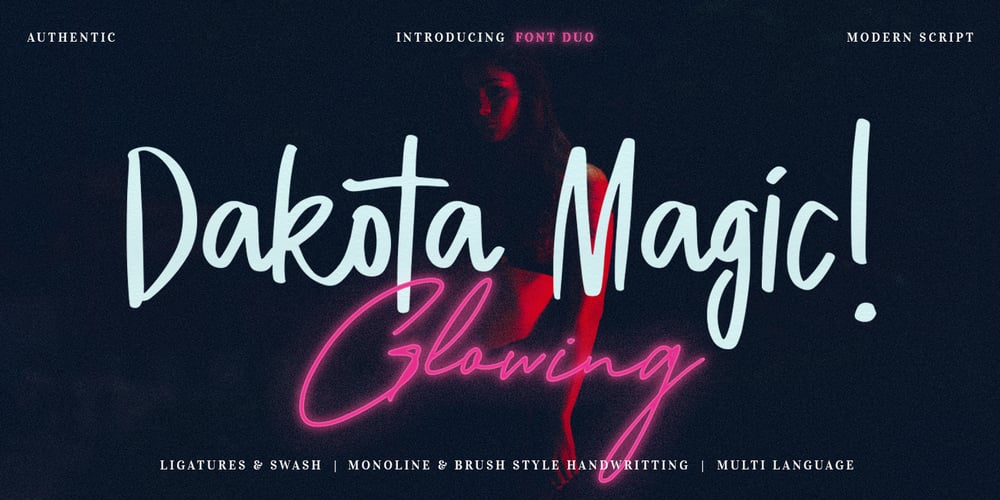
Dakota Magic
Dakota Magic font
Dakota Magic Font Family was designed by Gitayogi Irhandi and published by Scratch Design. Dakota Magic contains 2 styles and family package options. Dakota Magic Glowing is a new font duo with handwritten style. Dakota magic font using a hand brush style, this font will look artistic & modern as a brushed font, and Glowing Signature font is a monoline handwritten style, and this font looks like a very natural signature. This font pair that already matched up and ready to be used together for many of your projects. Here’s a run through everything included in this product:Dakota Magic! features 19 ligatures giving you the options to look totally custom and natural. Font also includes a full set of uppercase and lowercase letters, multilingual symbols, numerals, punctuation & swash.Glowing Signature features 37 ligatures giving you the options to look natural fast hand signature. Font also includes a full set of uppercase and lowercase letters, multilingual symbols, numerals, punctuation & swash.All fonts are available for Multi Languages Support. You can check your language by typing characters in the text box above.Dakota Magic Glowing Font Duo has a natural shape and texture, so would be perfect for all types of printing techniques. Enjoy it!